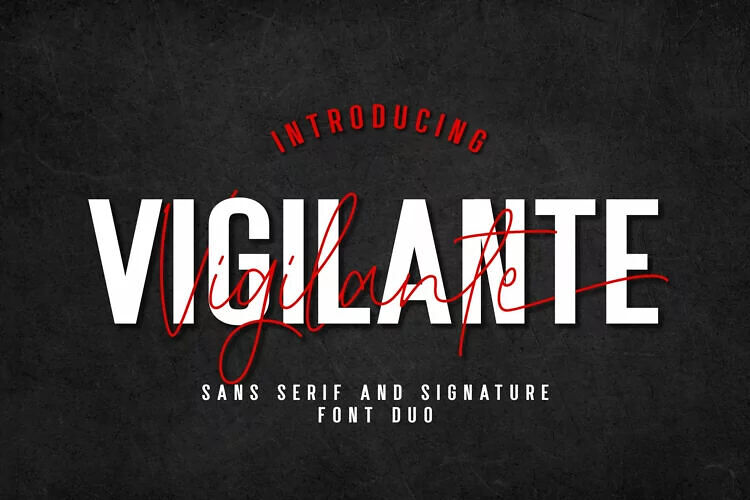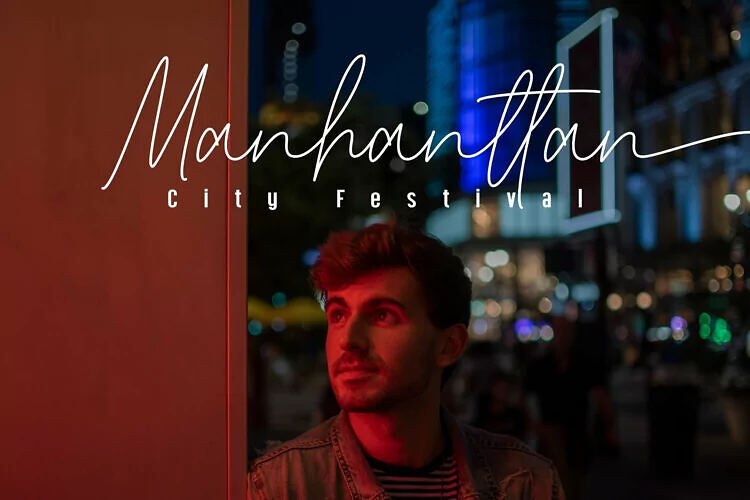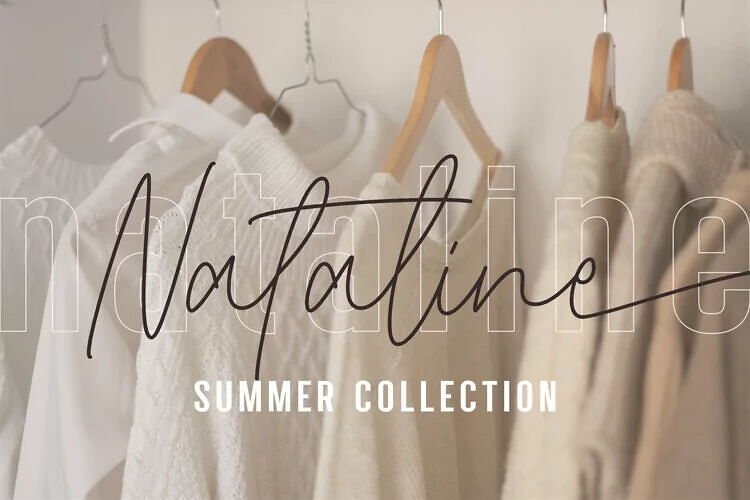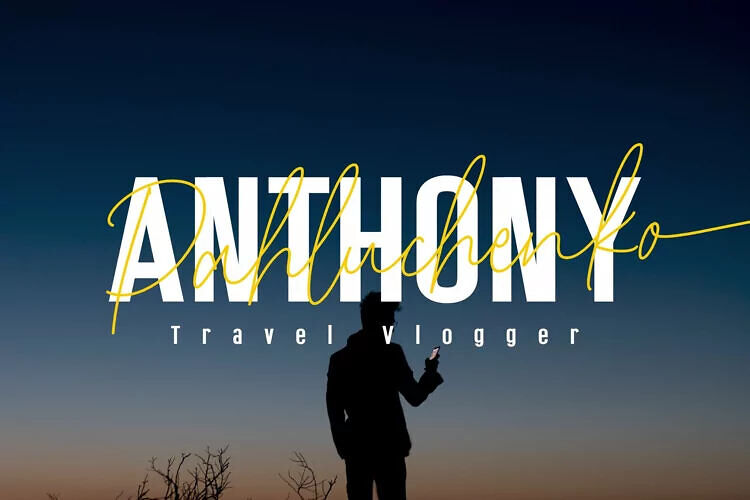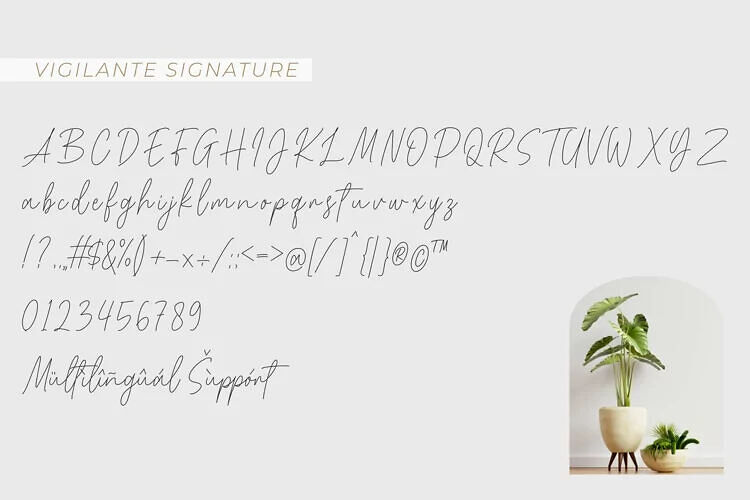
Vigilante Signature Font
Vigilante is a refined typeface pairing that blends a clean sans serif with an expressive signature script. Designed for versatility, it enhances logos, branding, invitations, posters, and other creative projects with sophistication.
The sans serif offers modern minimalism, perfectly balancing the script’s cursive elegance. Featuring stylish ligatures, alternates, and multilingual support, Vigilante allows seamless customization through OpenType features or glyph panels.